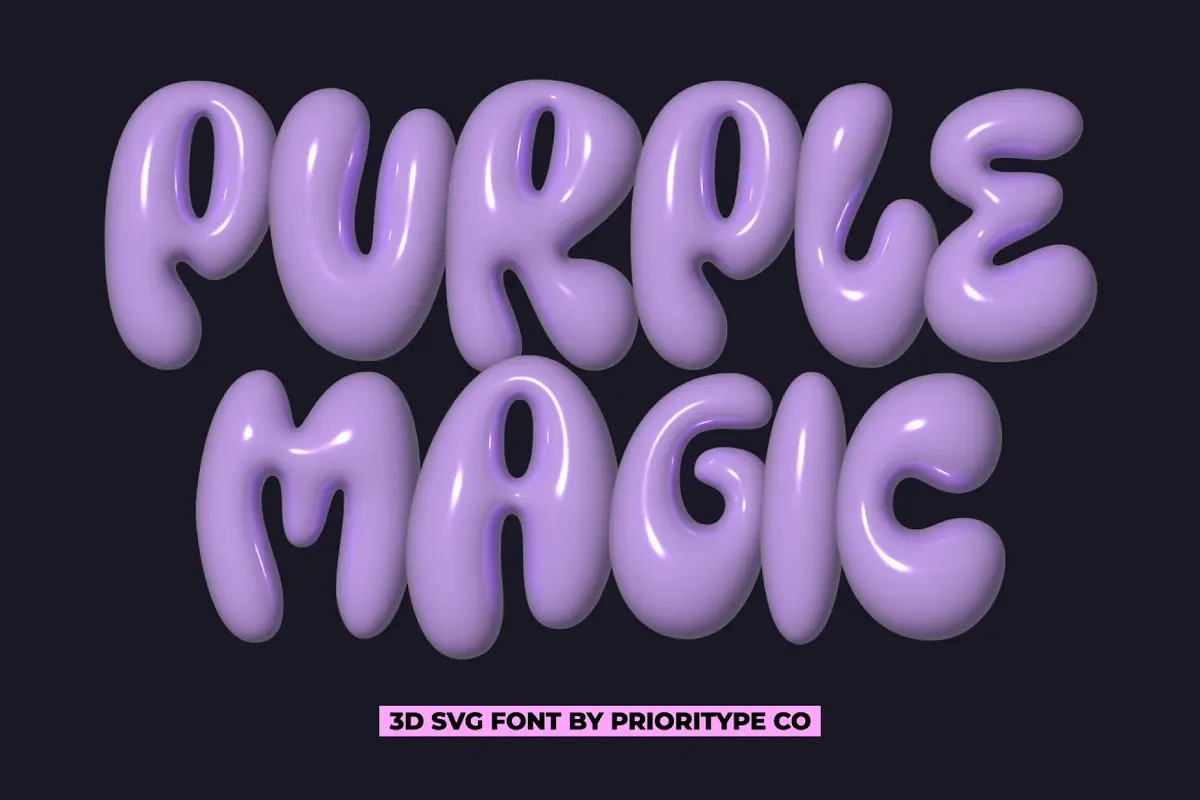
Purple Magic - 3D SVG Font Free Download
Purple Magic - 3D SVG Font Free Download is a vibrant and eye-catching 3D font that adds depth and dimension to your typography. This font comes with intricate, color-rich details that bring a magical and dynamic feel to your designs. Perfect for creating bold headlines, logo designs, posters, and promotional materials, this 3D SVG font allows you to create designs that truly stand out with its bright, captivating appearance.
Using the Purple Magic - 3D SVG Font Free Download adds a playful and futuristic vibe to your work. Whether you're creating an energetic brand identity, designing event posters, or crafting engaging social media content, this font brings a visually stunning effect to your typography.